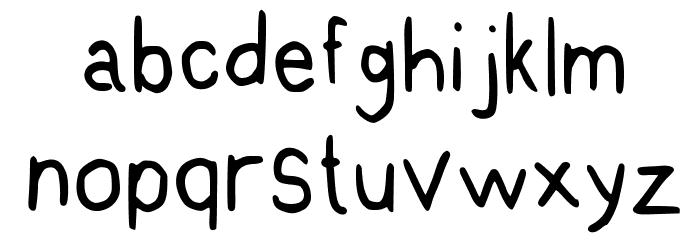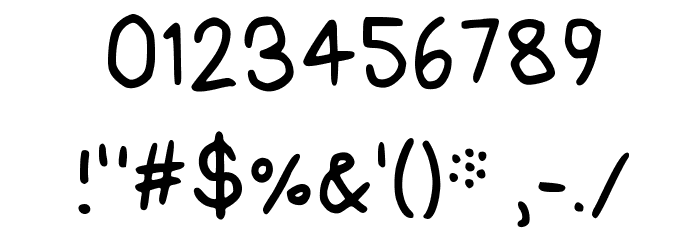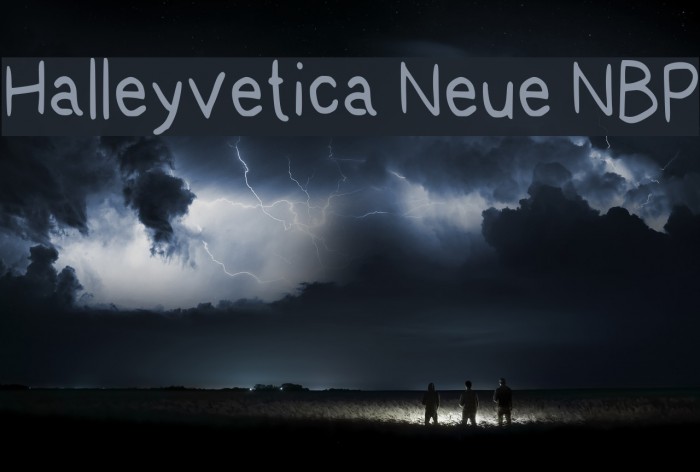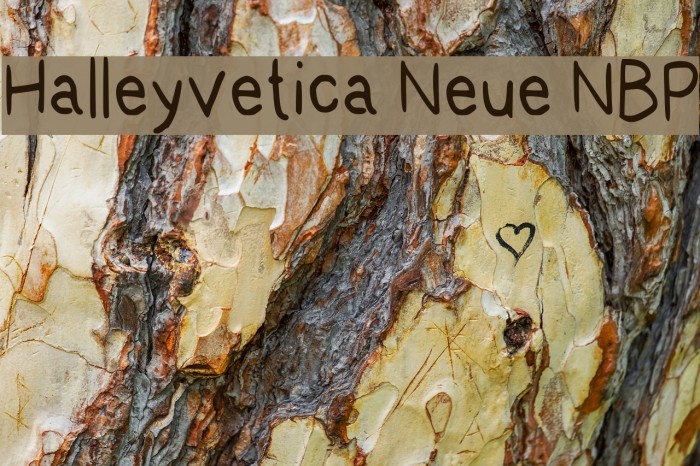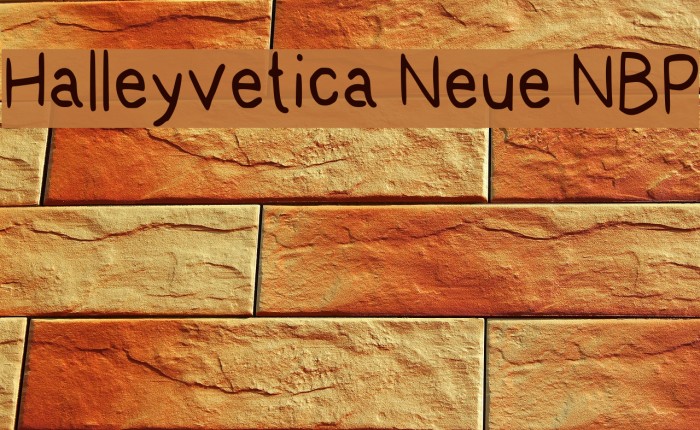
Halleyvetica Neue NBP Font
This playful and whimsical font features a handwritten style with smooth, rounded edges and a casual appearance. The characters are slightly irregular, giving it a friendly and approachable feel. The uppercase and lowercase letters maintain a consistent flow, while the numerals and special characters complement the overall design. Its informal nature makes it suitable for projects that require a personal touch or a fun, lighthearted vibe. The font's simplicity and clarity ensure readability, making it versatile for various creative applications.
A playful, handwritten font with smooth, rounded edges and a casual, friendly appearance.
- Proposed Projects: Ideal for children's books, greeting cards, informal invitations, and playful branding.
- Overall Style: Casual, Playful
- Use Case: Headlines, Informal text, Creative projects